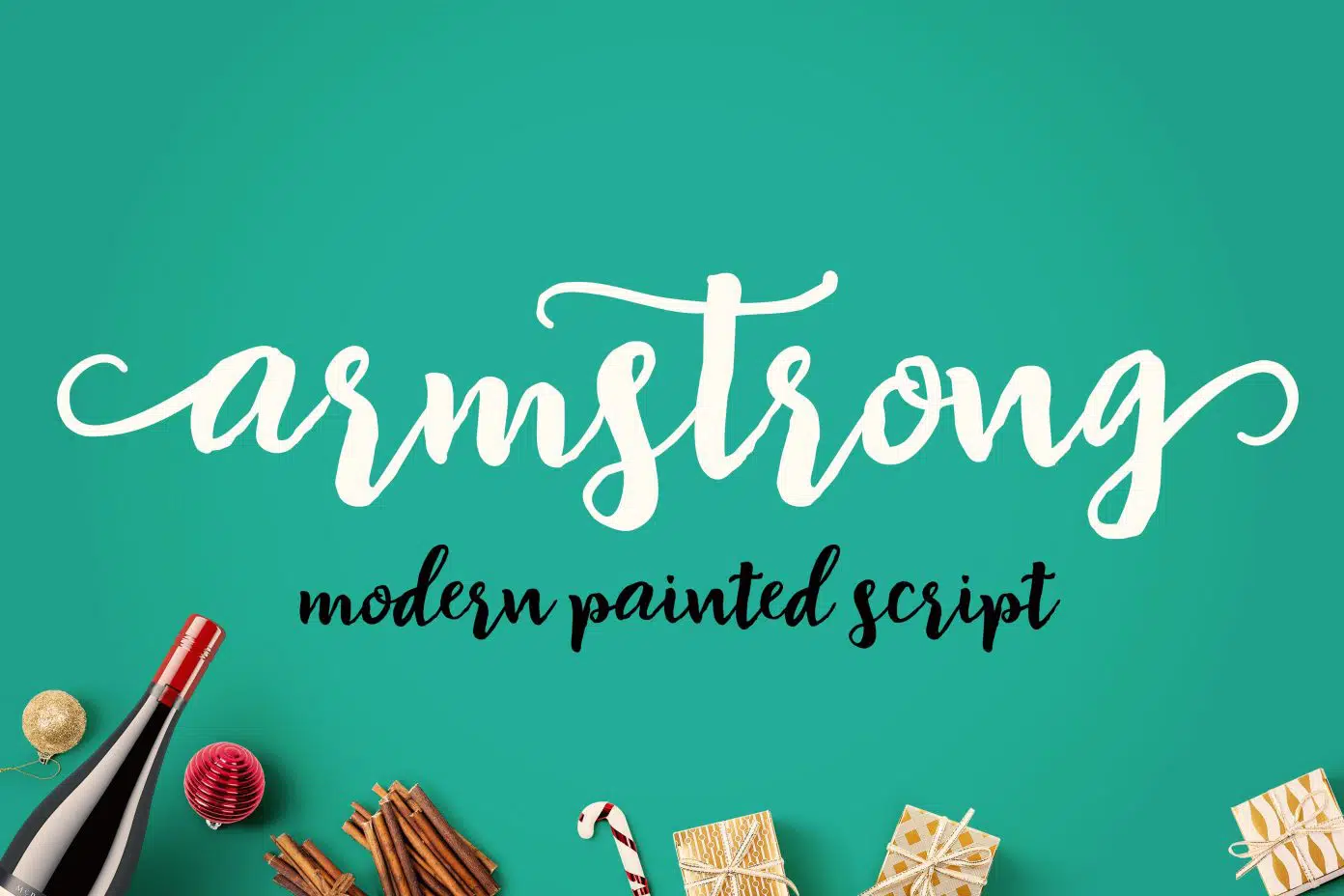
Armstrong Font
Armstrong Font is perfect for bold headlines, sports branding, athletic logos, motivational posters, fitness marketing materials, masculine product packaging, automotive branding, strong corporate identities, action-oriented advertising, adventure brand designs, impactful web banners, and any design project requiring powerful and commanding typography.
What makes Armstrong Font exciting is its strong, confident character that commands attention and conveys strength and determination. The font's robust letterforms create an immediate sense of power and authority, making it ideal for brands that want to project confidence and leadership. Its bold presence ensures maximum impact across all media, helping designers create compelling visual statements that inspire action and confidence.
The Armstrong Font family typically includes uppercase and lowercase characters, numerals, punctuation marks, and various weights that provide flexibility for different design applications.